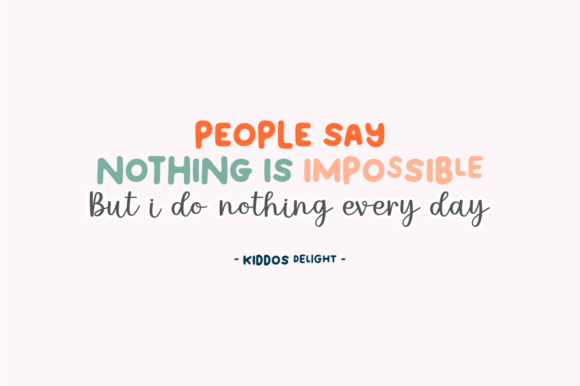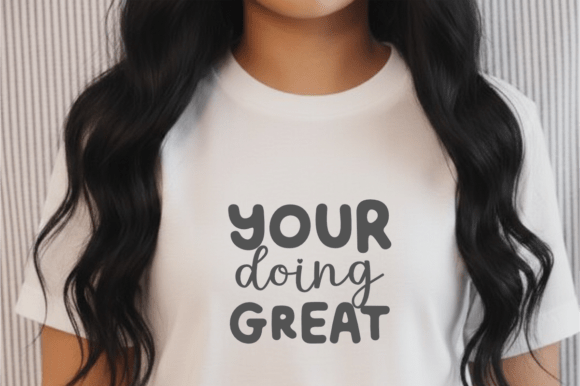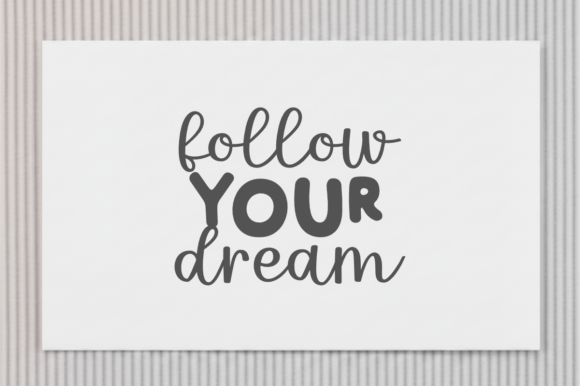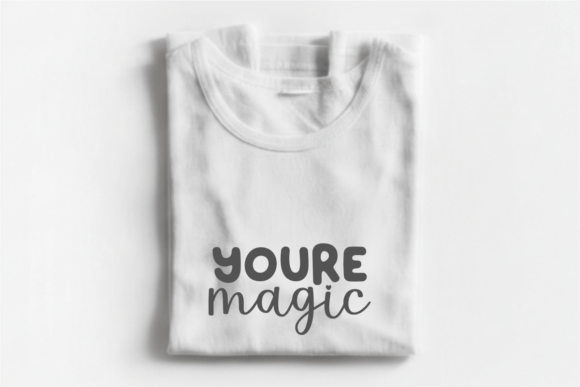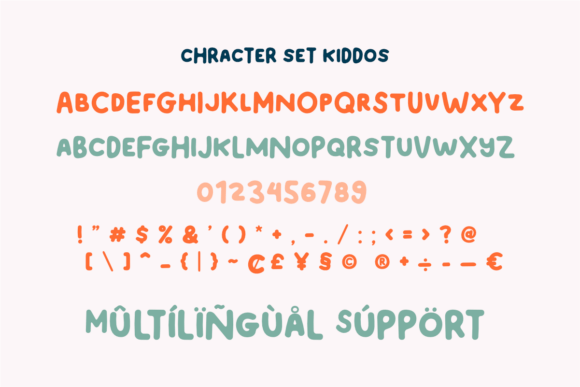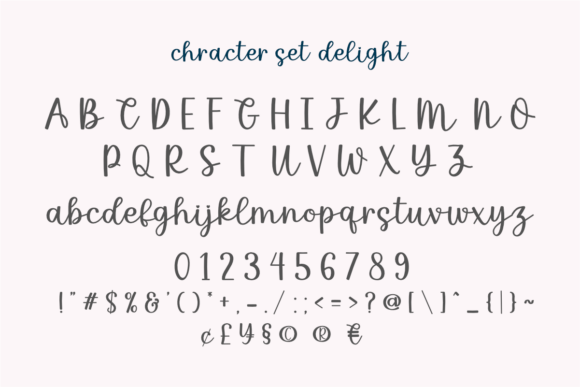
Introduction to Kiddos Delight Duo Font
Remember the thrill of discovering a new design resource that sparks endless creativity? For designers and crafty enthusiasts alike, there’s no greater joy than stumbling upon a high-quality font that elevates their projects to new heights. And that’s exactly what we have in store for you today – a delightful introduction to the Kiddos Delight Duo Font.
This charming font is more than just a pretty face; it’s a versatile tool designed to breathe life into every corner of your creative projects. With its unique blend of quirky modern accents and hand-lettering, Kiddos Delight Duo Font is the perfect addition to any design arsenal.
Whether you’re looking to add a personal touch to your branding efforts or create stunning visuals for a special occasion, Kiddos Delight Duo Font is sure to impress. And the best part? It’s available for free download, complete with a transparent background, making it easy to incorporate into your next project. Get ready to unleash your creativity and make a statement with Kiddos Delight Duo Font!
Key Features of Kiddos Delight Duo Font
- High-quality design resource with a transparent background, perfect for creative projects.
- Unique, playful design featuring a duo of fonts with different styles and personalities.
- Designed to add a touch of whimsy and fun to any design project, from children’s books to advertising materials.
- Easy to use and customize, making it an excellent choice for designers of all skill levels.
- Perfect for those looking for a free, high-quality design resource that can elevate their creative project.
Honest Review: Kiddos Delight Duo Font
I recently came across the Kiddos Delight Duo Font, a free download that caught my eye as a potential design resource for my creative projects. As a designer, I appreciate high-quality fonts that can elevate my work and make it stand out.
What works well: ✨ The font is incredibly versatile and can be used in a variety of contexts, from children’s books to educational materials. The transparent background is a nice touch, making it easy to layer over different images and colors. The font is also highly customizable, with a range of styles and sizes to choose from.
- Perfect for children’s educational materials, such as worksheets and activity sheets
- Great for creating playful and engaging headings and titles
- Can be used in digital and print projects, including websites, social media, and advertising materials
What doesn’t work so well: ⚠️ The font may not be the best choice for formal or professional projects, as it can come across as too playful or childish. Additionally, the font may not be as versatile when used in smaller text sizes.
Overall, I’m impressed with the Kiddos Delight Duo Font and would definitely recommend it as a design resource for creative projects. With its high quality, transparent background, and customizable options, it’s a great addition to any designer’s toolkit.
Tips for Getting the Most Out of Kiddos Delight Duo Font
To maximize the potential of Kiddos Delight Duo Font, consider the following tips:
- Experiment with different font sizes and styles to create visually appealing designs.
- Combine Kiddos Delight Duo Font with other design elements to create unique and engaging visual content.
Kiddos Delight Duo Font is suitable for a variety of creative projects, including:
- Children’s book illustrations and design.
- Party invitations and decorations.
- Education and learning materials.